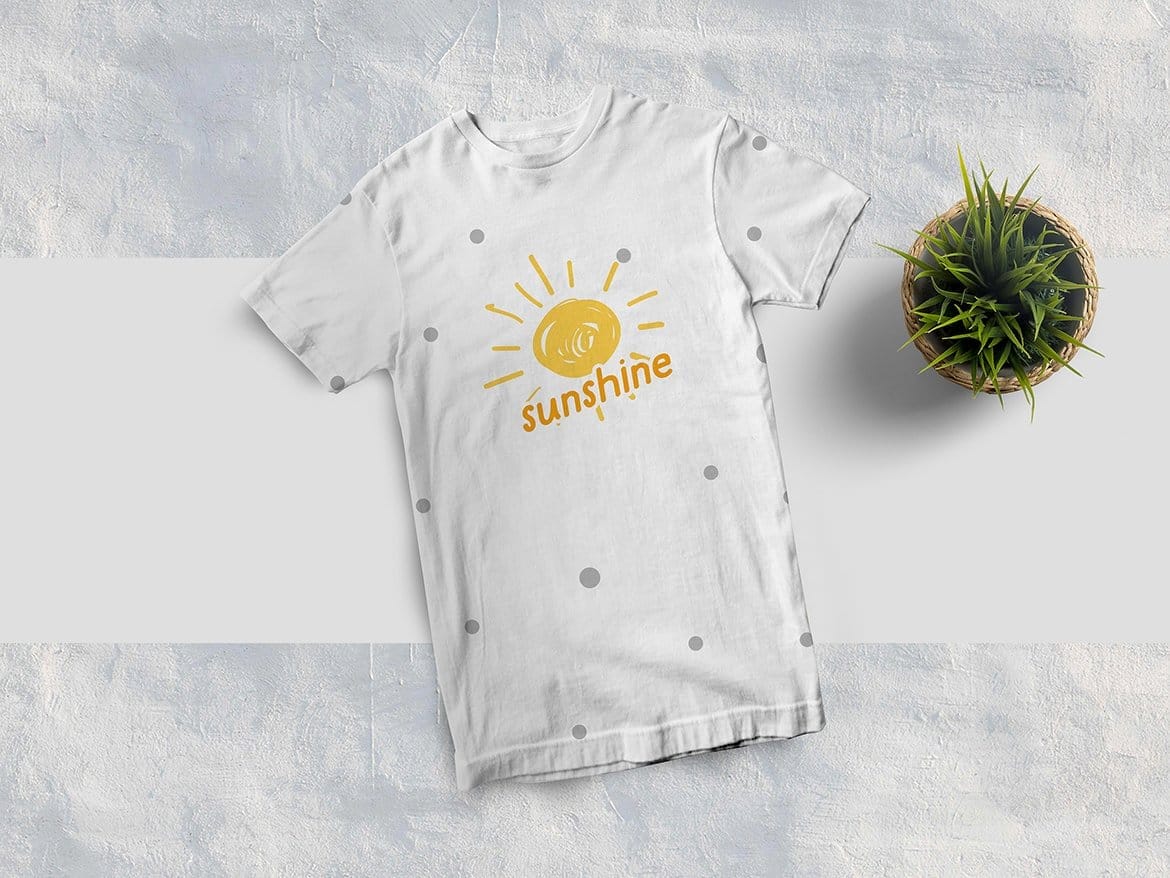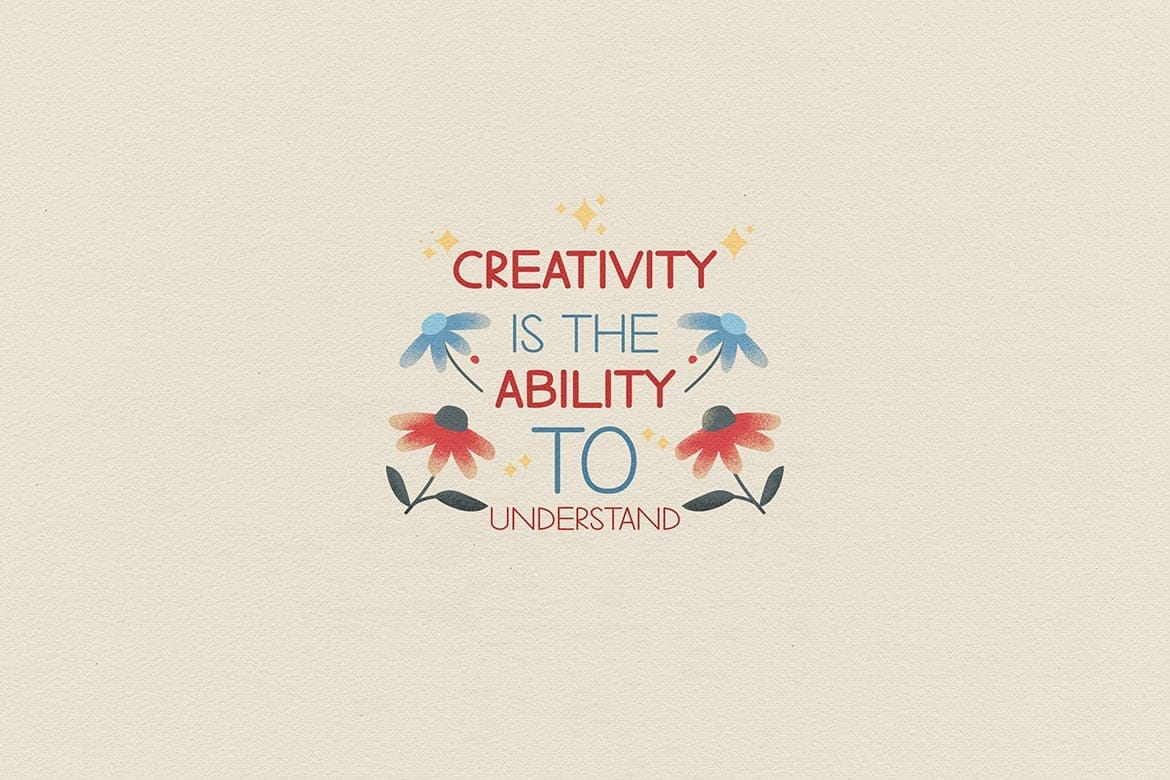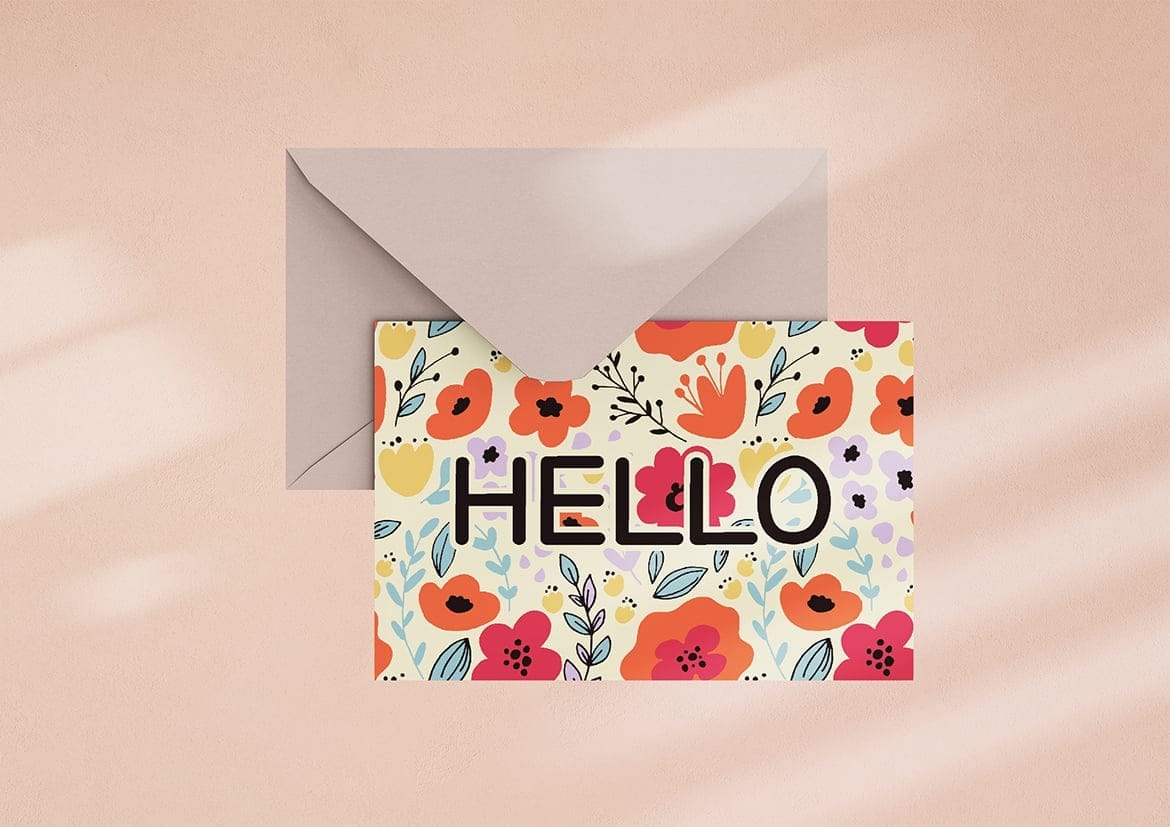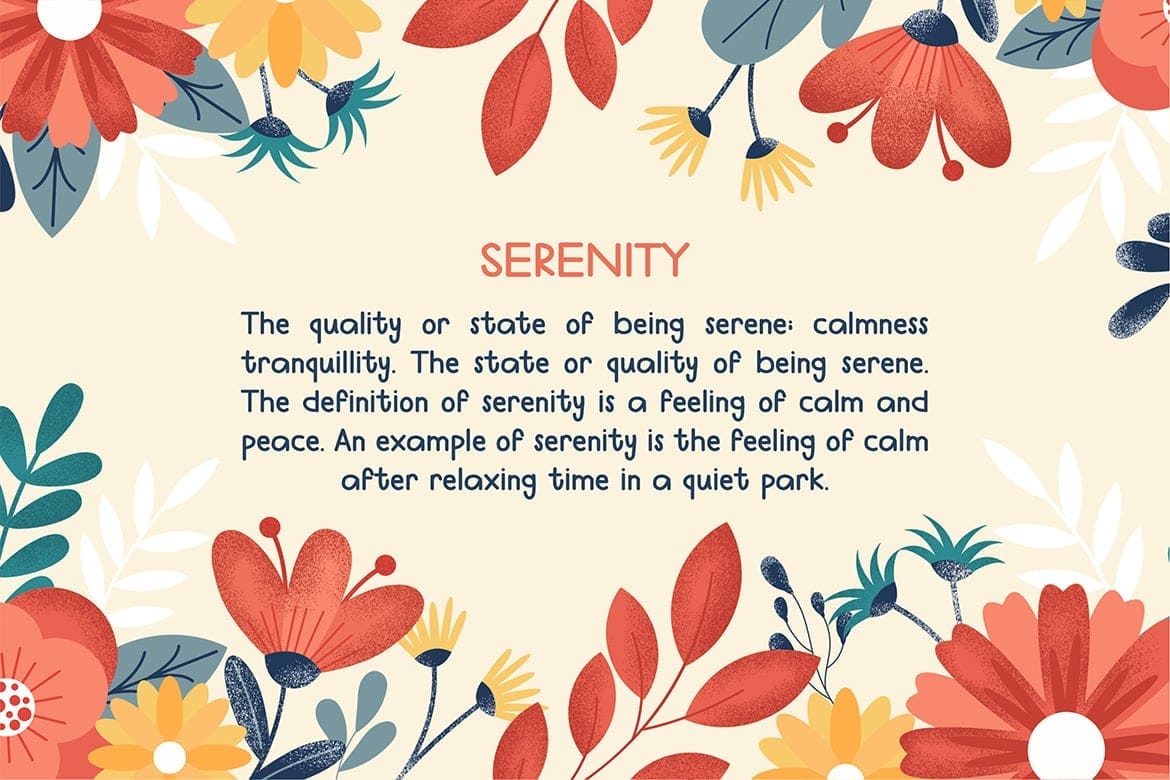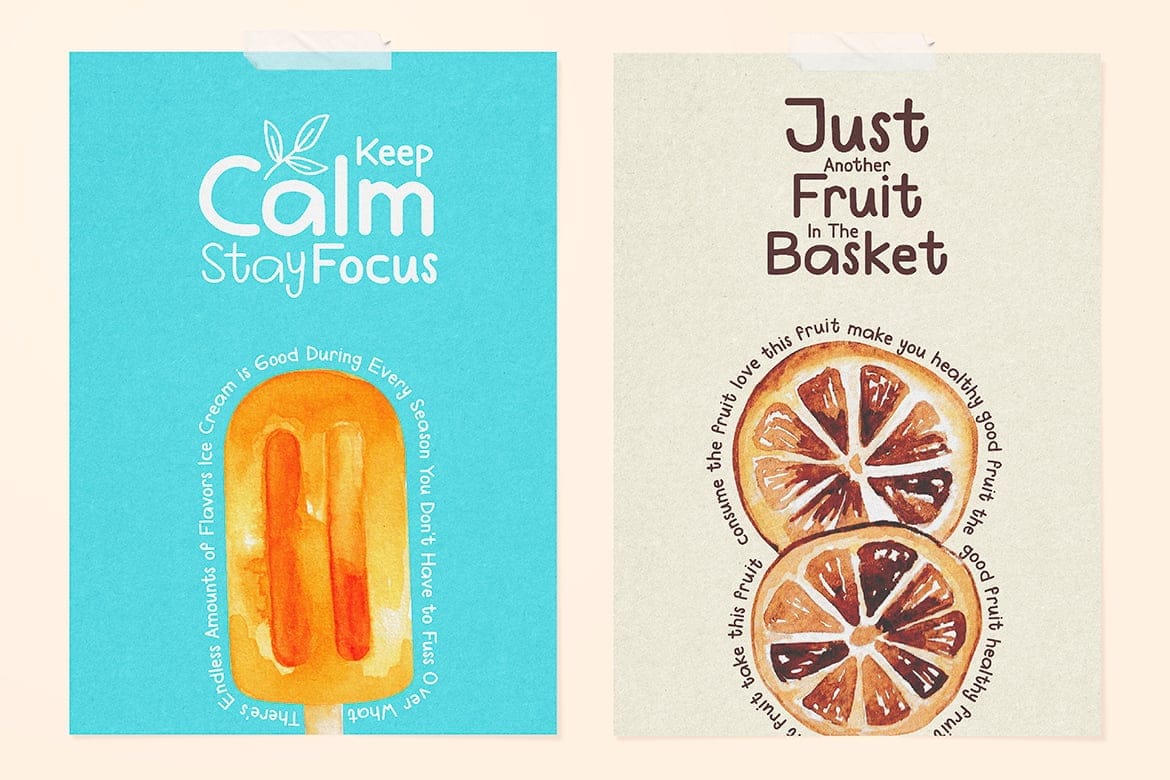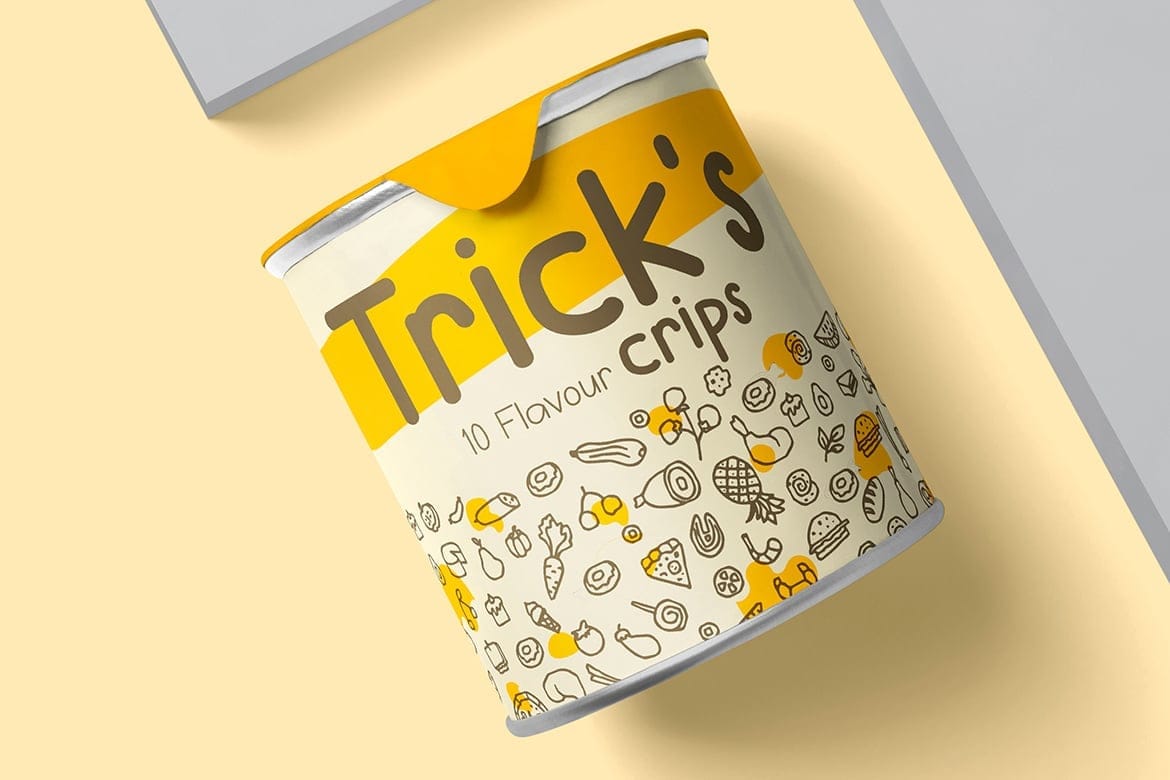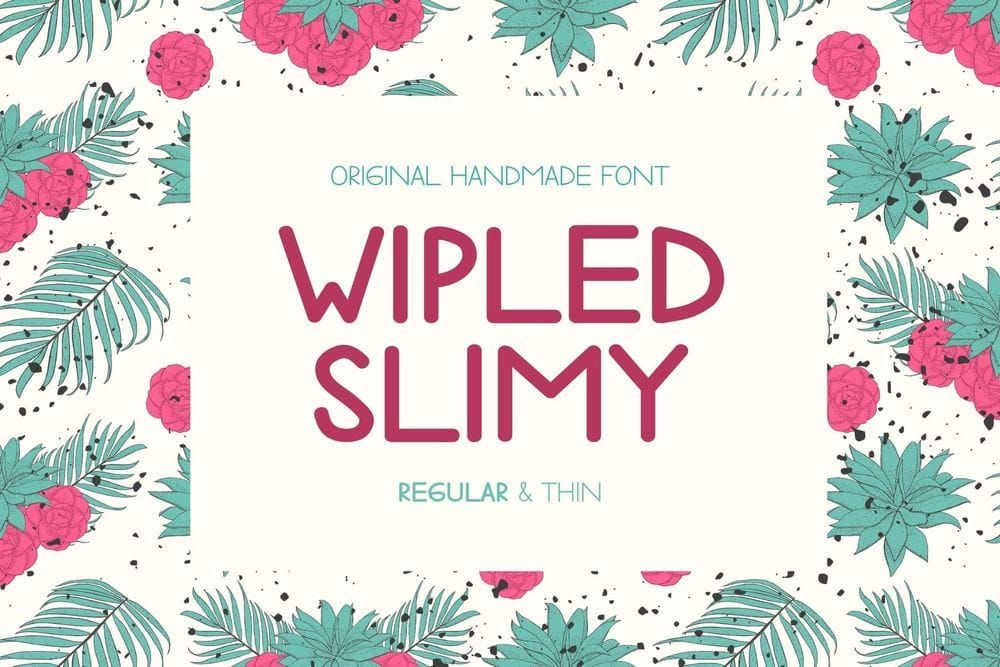
Wipled Slimy Font
Wipled Slimy Font This font is clean, professional and bold. Each letter has its own personality, which is what makes it so much fun to use in your branding.
Wipled Slimy Font is unique handwriting font. Created with original handmade sketch. This font suit for personal & commercial project such a poster, letter, headline, web blog, social media post, stories, banner, Packaging, T-shirt design, pillow, wedding invitation, or even for logo design. Use them in your designs to create a unique identity.
Make your business stand out by writing in a way that’s unique to you. Use our handwriting font and give your brand a distinctive look.